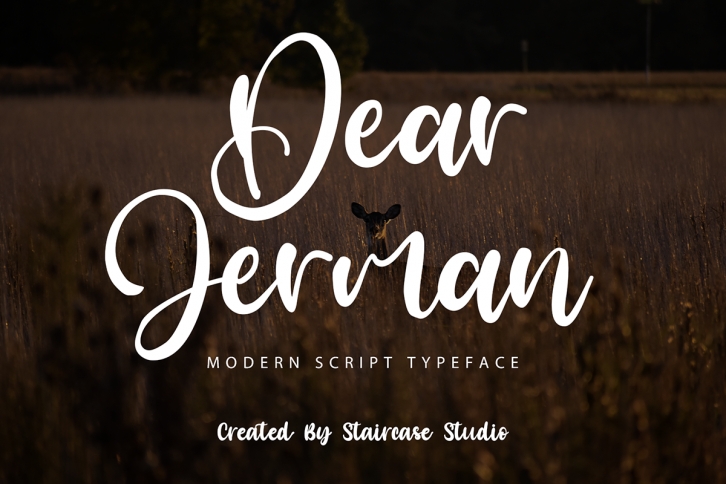
Dear Jerman is a modern script font. A collection of letters and numbers suitable for your projects is also great for logotypes, branding materials, logos, digital lettering arts, t-shirts/apparel, posters, magazines, signs, advertising designs, and more!